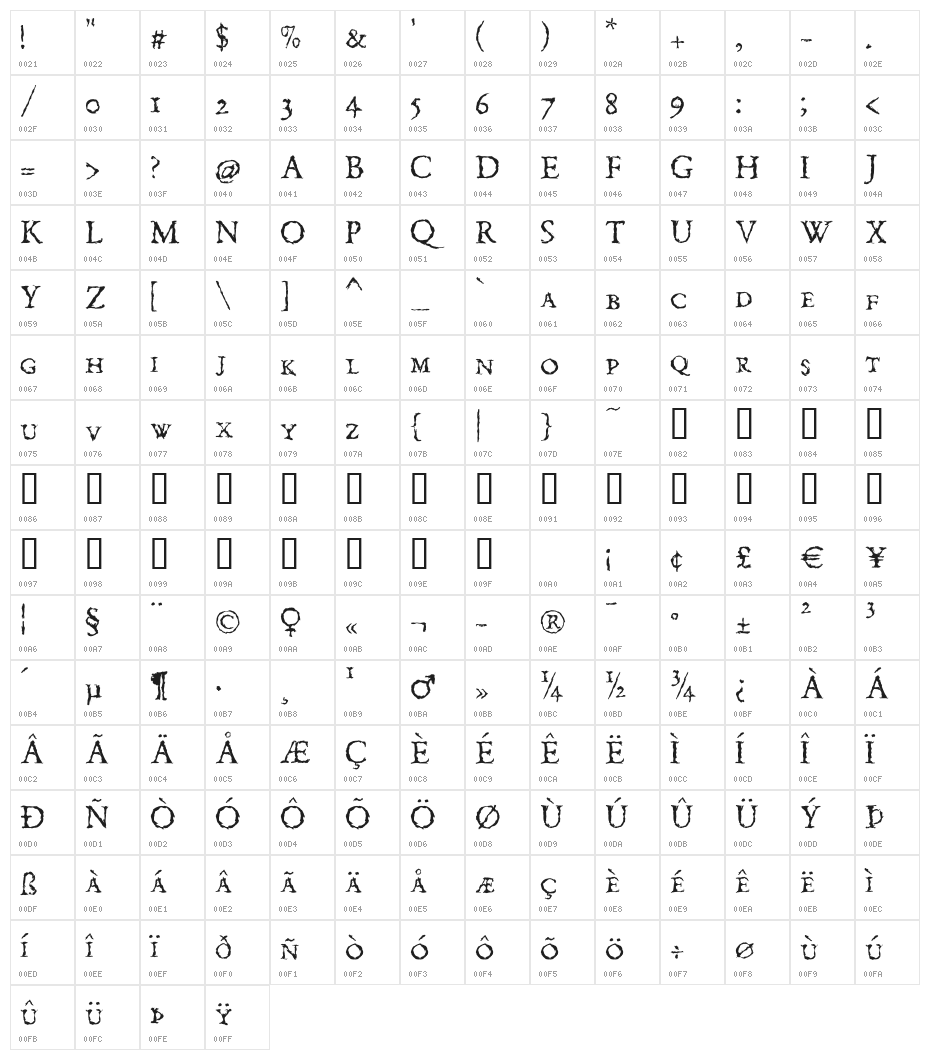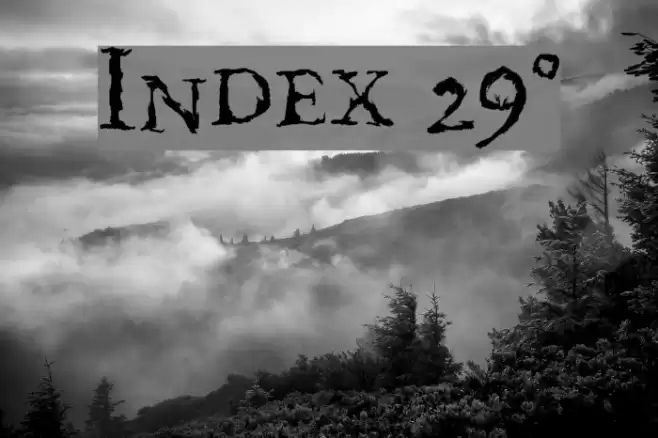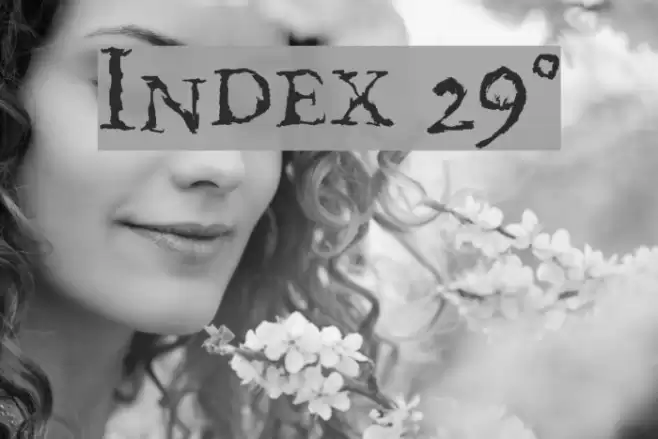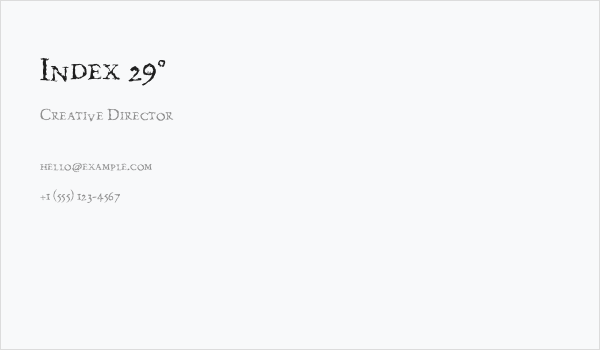
Index 29° Font
Index 29° Description
This font exhibits a rugged, hand-drawn style with a distinctly organic feel. The characters are uneven and feature rough edges, giving them a weathered, vintage appearance. The uppercase and lowercase letters maintain a consistent style, with exaggerated serifs and irregular strokes that add to the font's unique character. The numerals and special characters follow the same aesthetic, ensuring a cohesive look across all glyphs. This font's distinctive style makes it ideal for projects that require a touch of rustic charm or an aged, historical vibe.
| Use Case | Logos, Posters, Headlines |
| Proposed Projects | Ideal for vintage-themed designs, historical projects, rustic branding, and artistic posters. |